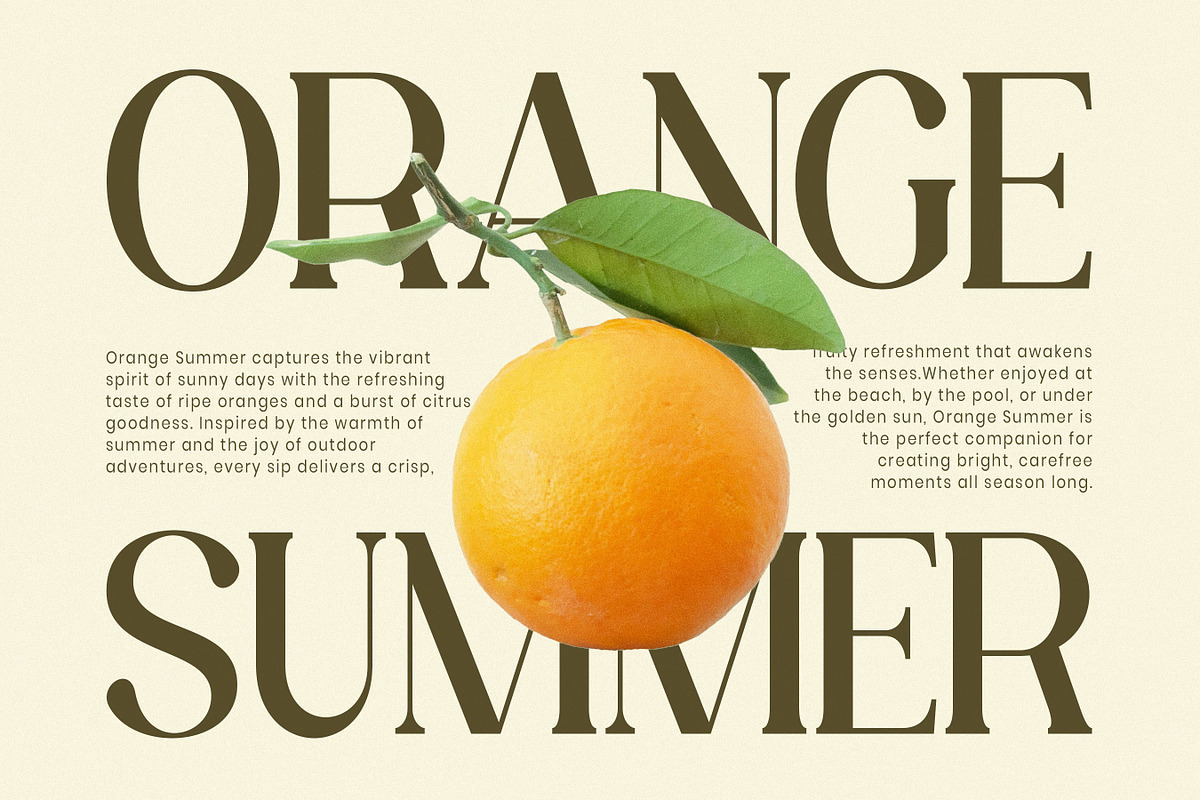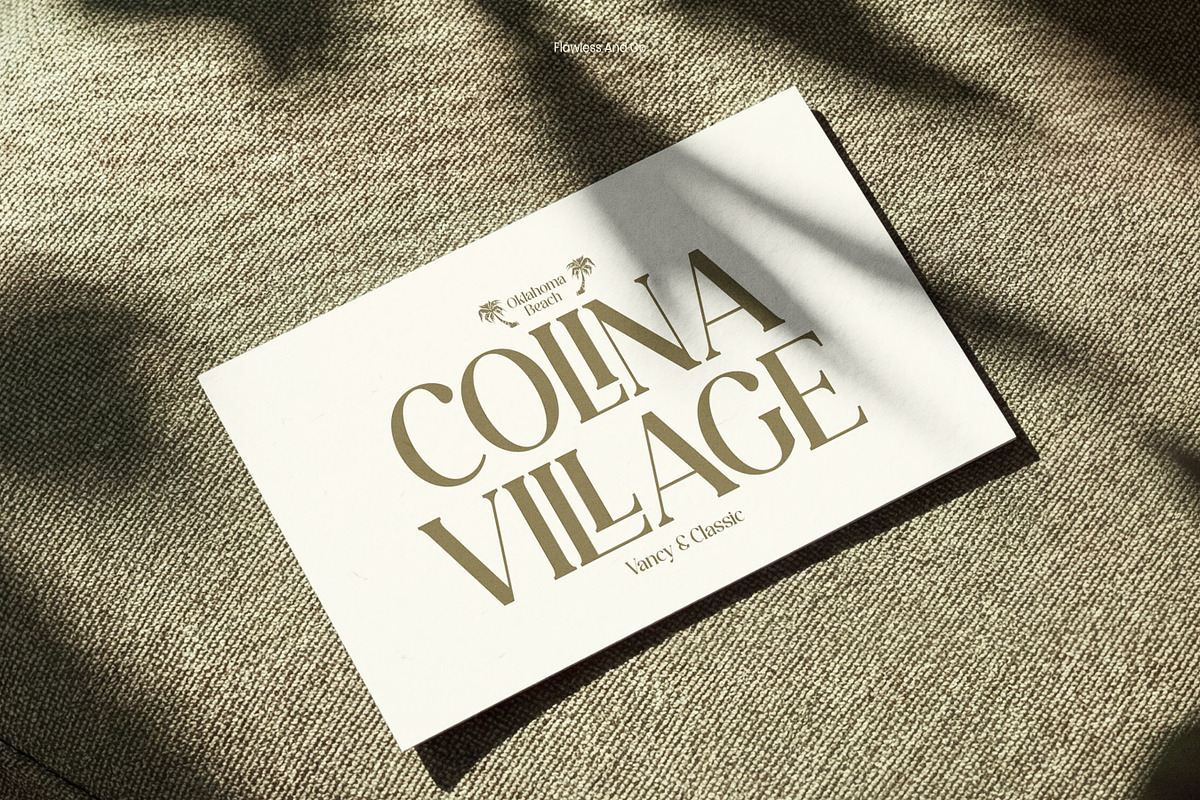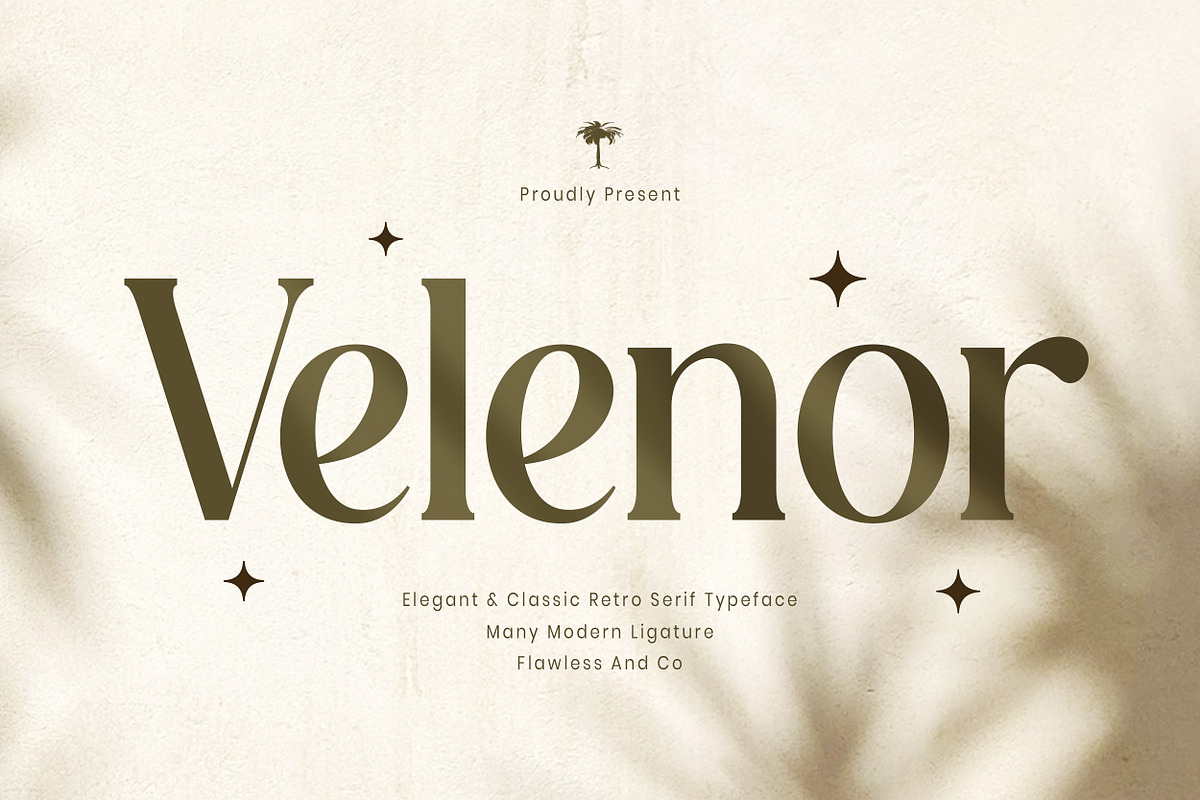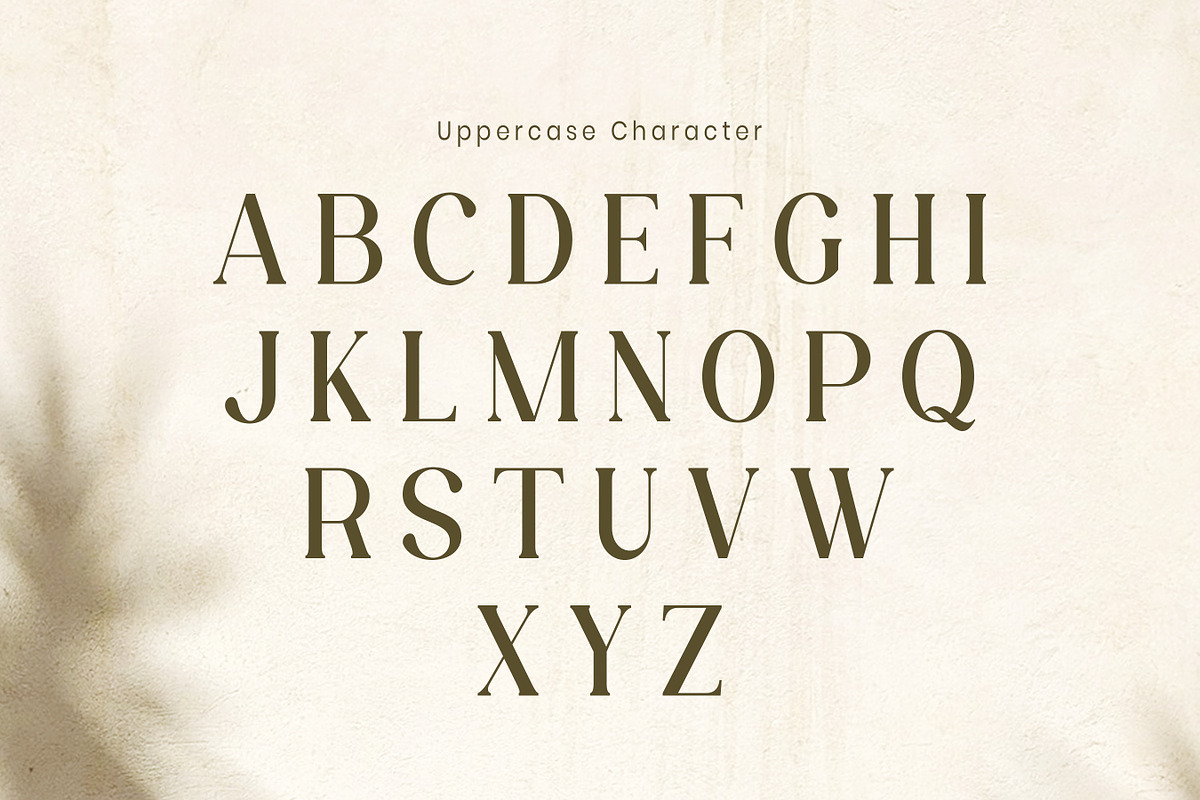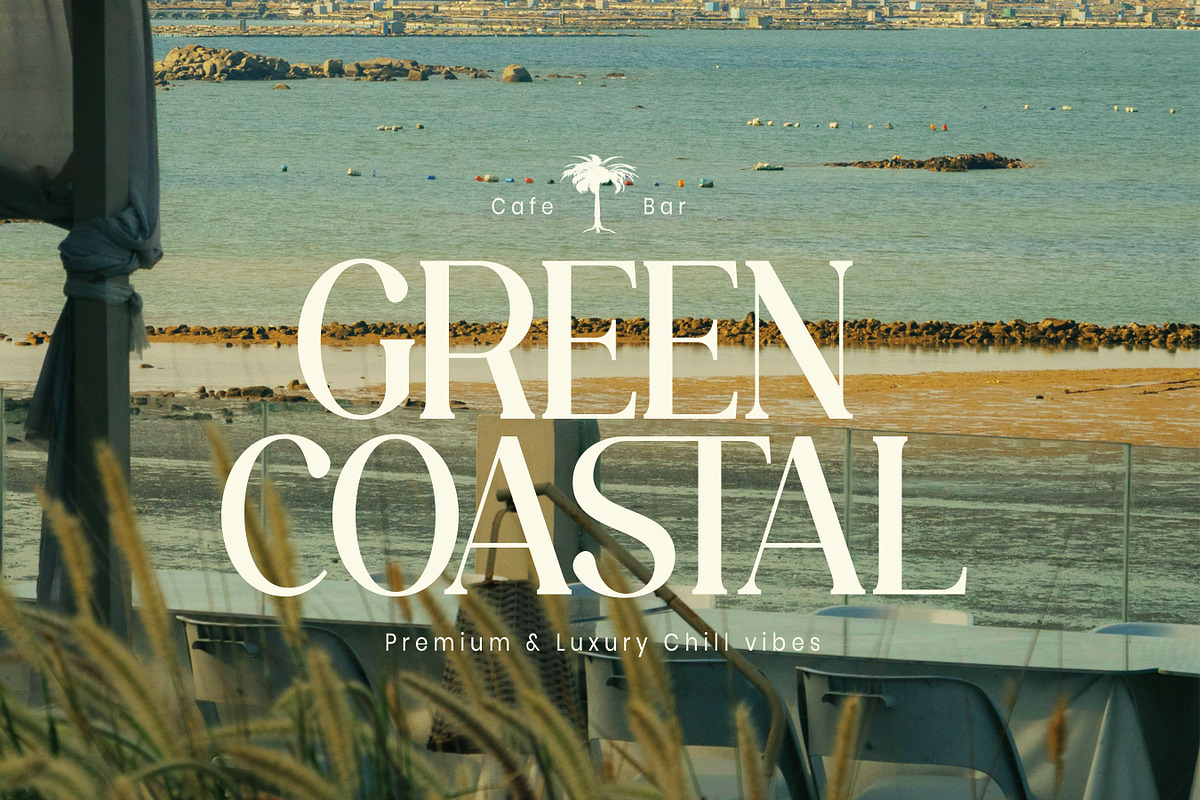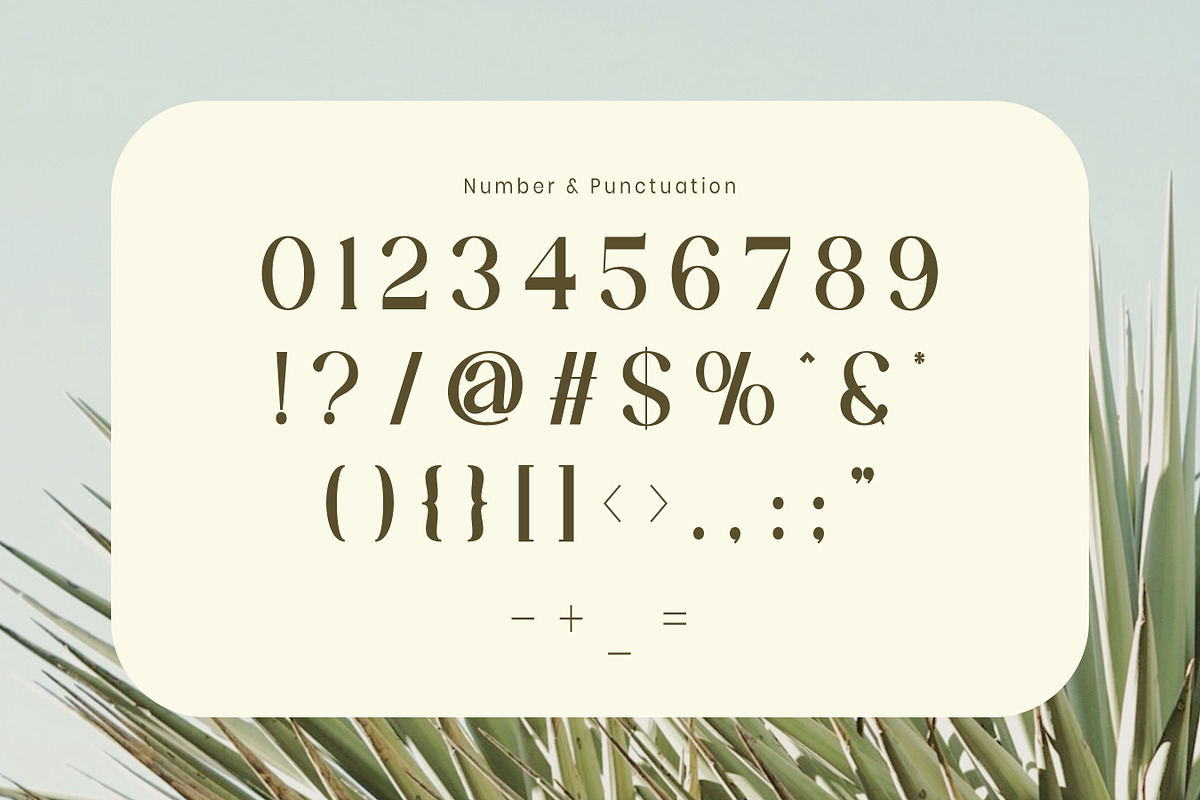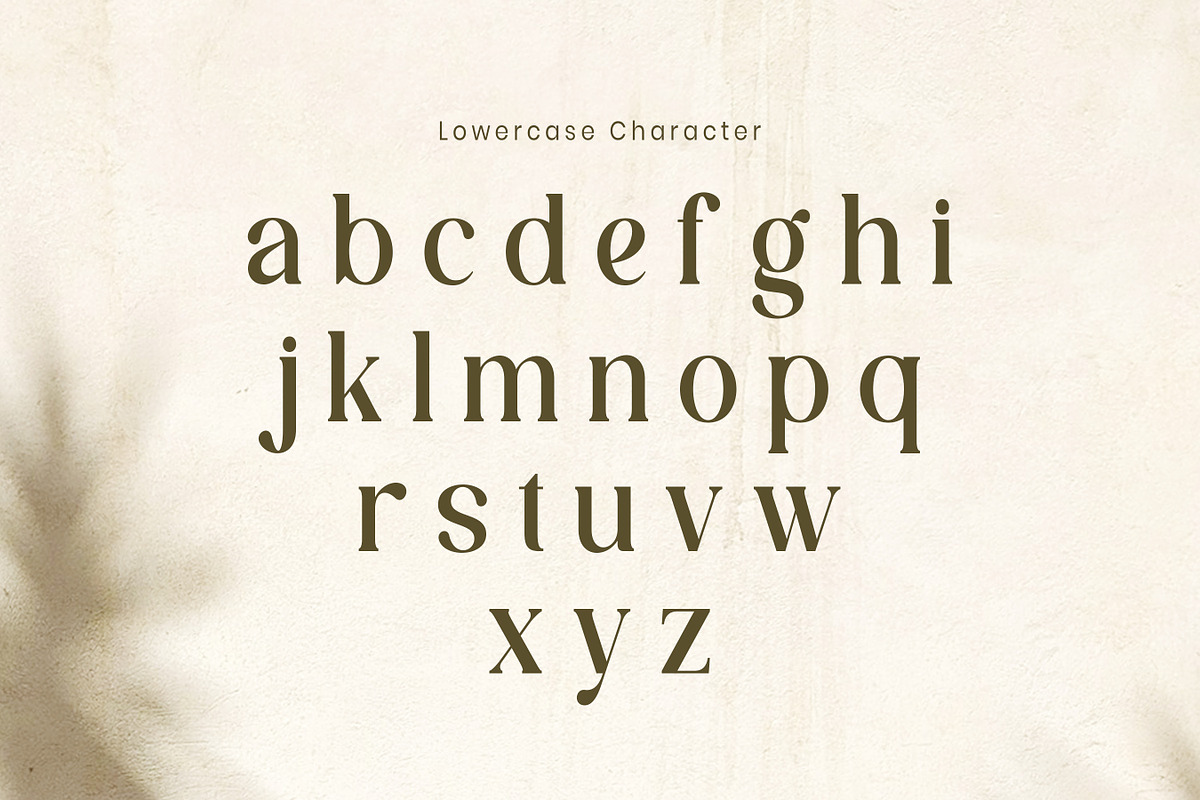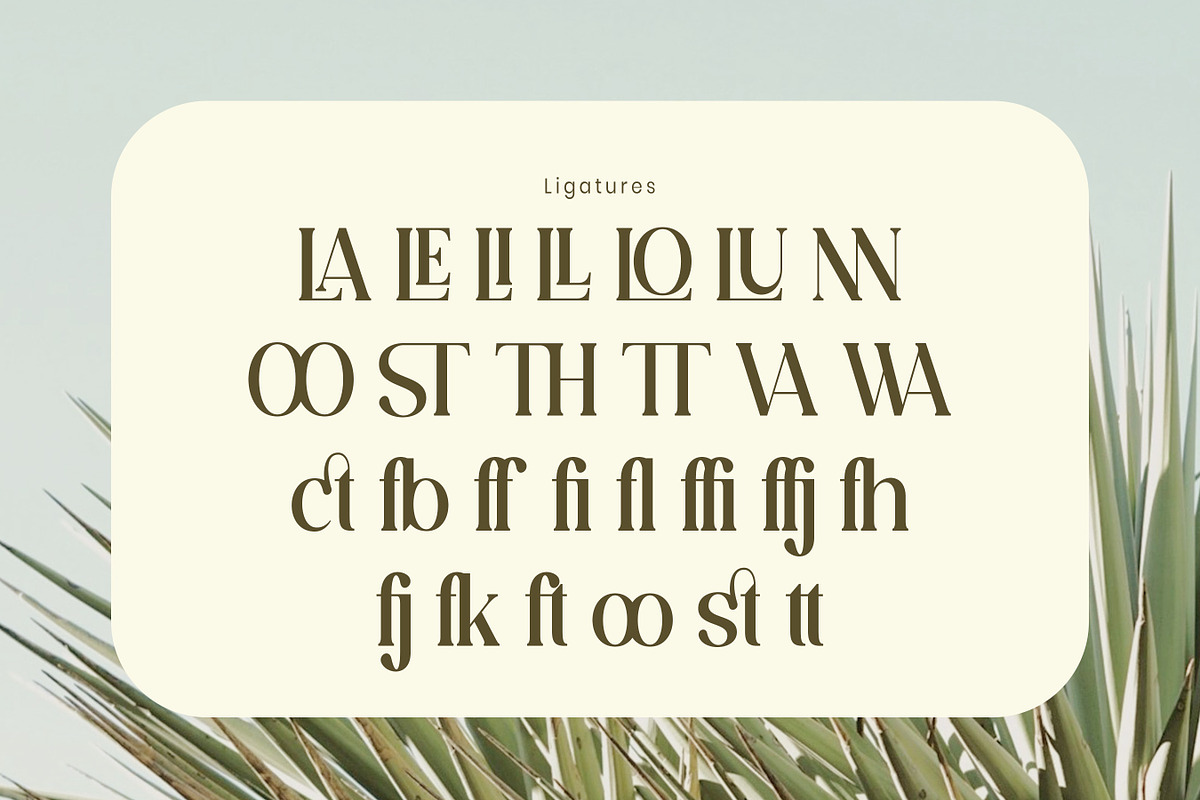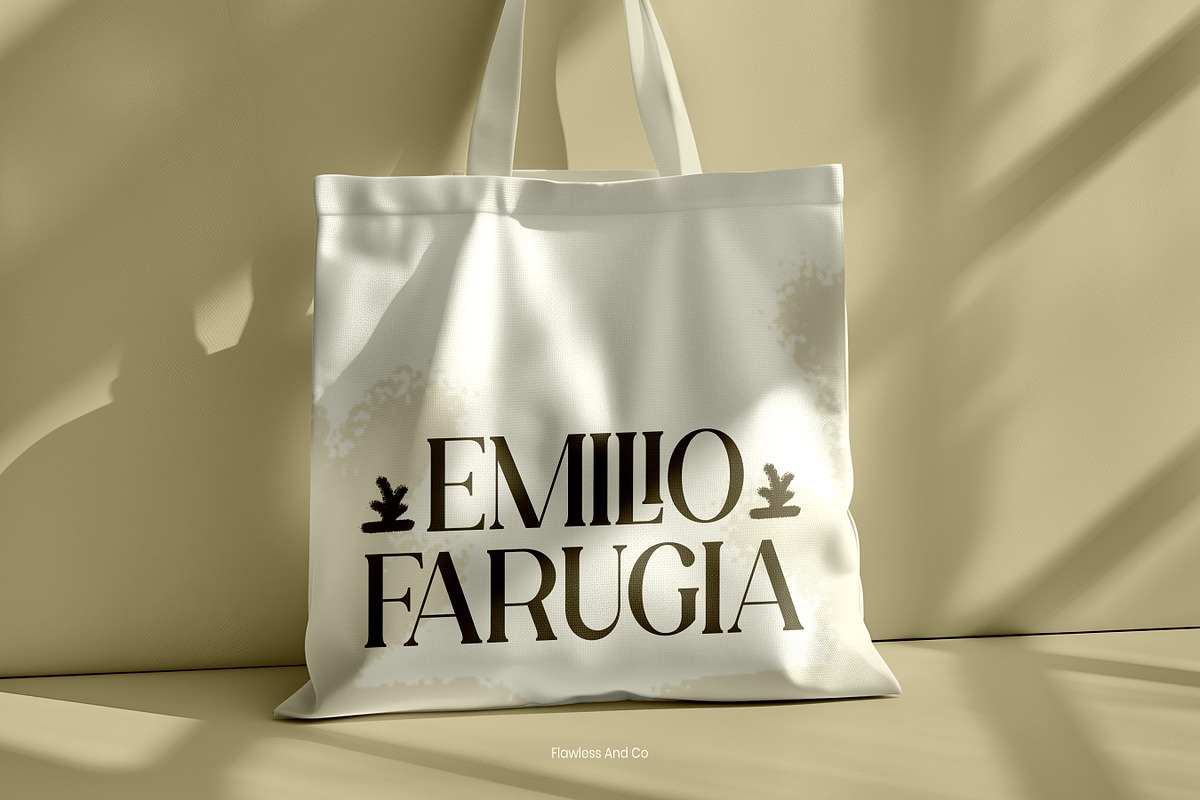
Velenor - Elegant Retro Serif Font
Velenor - Elegant Classic Retro Serif Font
Velenor is an elegant classic retro serif font that blends vintage sophistication with modern craftsmanship to create typography that feels timeless, refined, and effortlessly luxurious. Designed with graceful high-contrast serifs, smooth flowing curves, and beautifully balanced proportions, Velenor brings an unmistakable sense of heritage while remaining perfectly suited for today's creative projects.
Alternates & Ligatures
Who should use Velenor?
Velenor is perfect for graphic designers, branding agencies, publishers, creative entrepreneurs, luxury brands, boutique businesses, and anyone looking for a serif font that combines vintage beauty with modern versatility. Whether you're crafting a premium logo, designing editorial layouts, or building an elegant brand identity, Velenor helps your typography make a timeless impression.
Classic retro typography